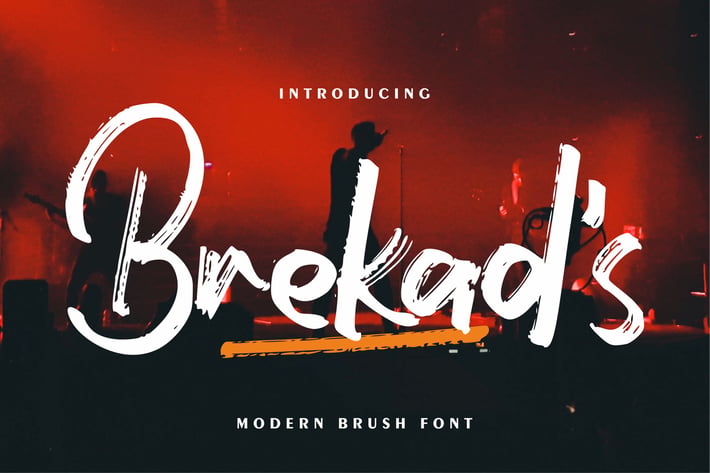
Brekad's | Modern Brush Font
Brekad's | Modern Brush Font with a calligraphy style, So beautiful on invitation like greeting cards, branding materials, business cards, quotes, posters, and more!